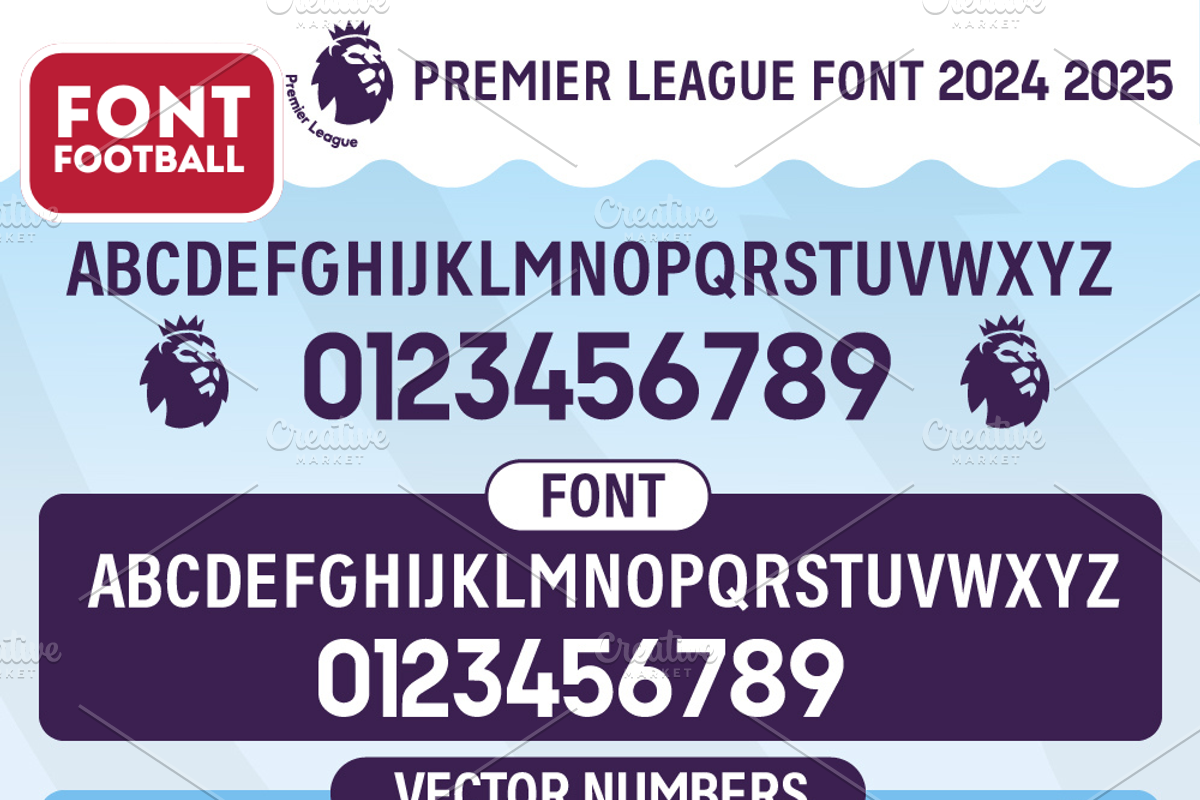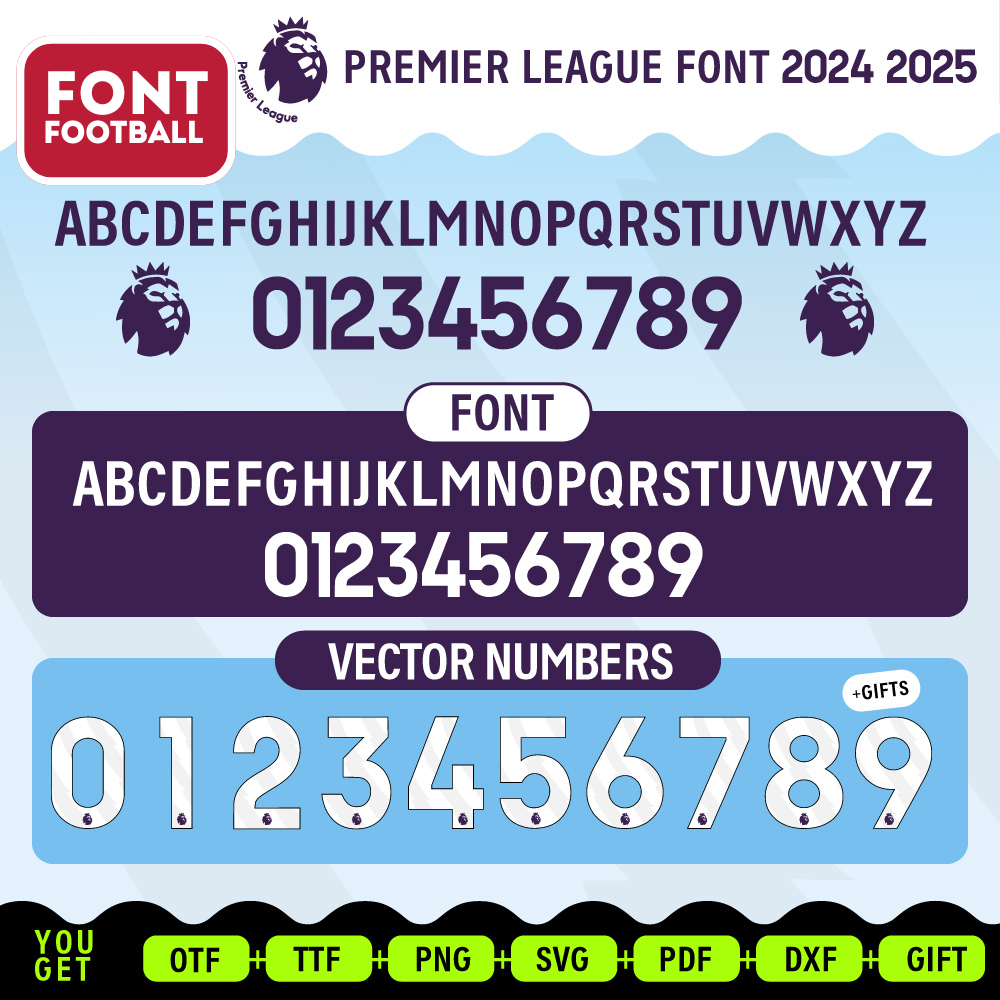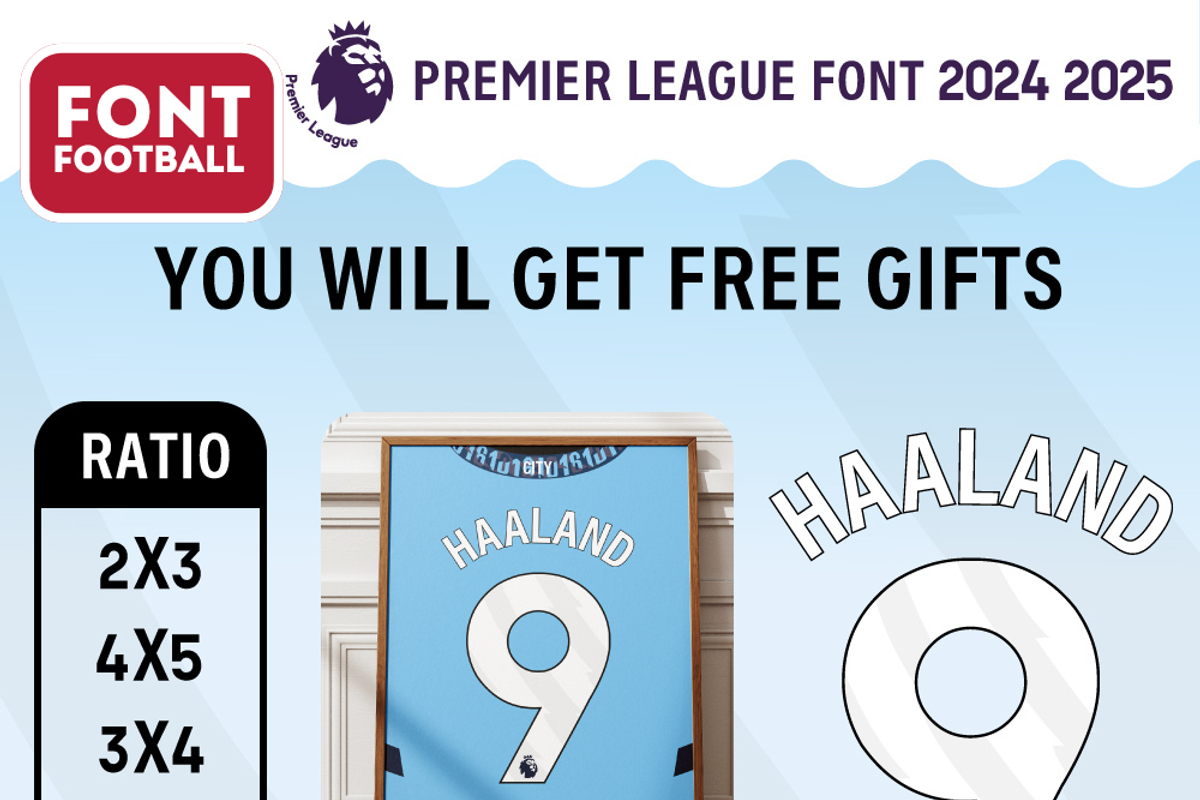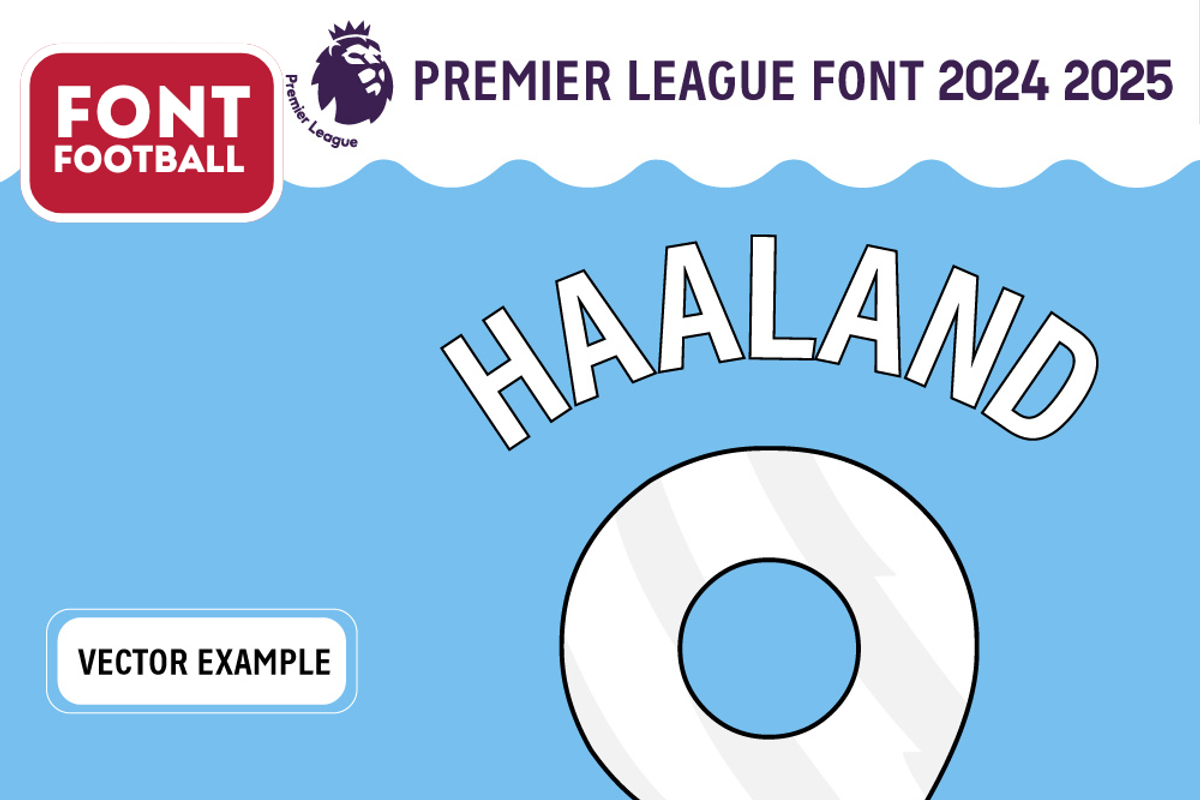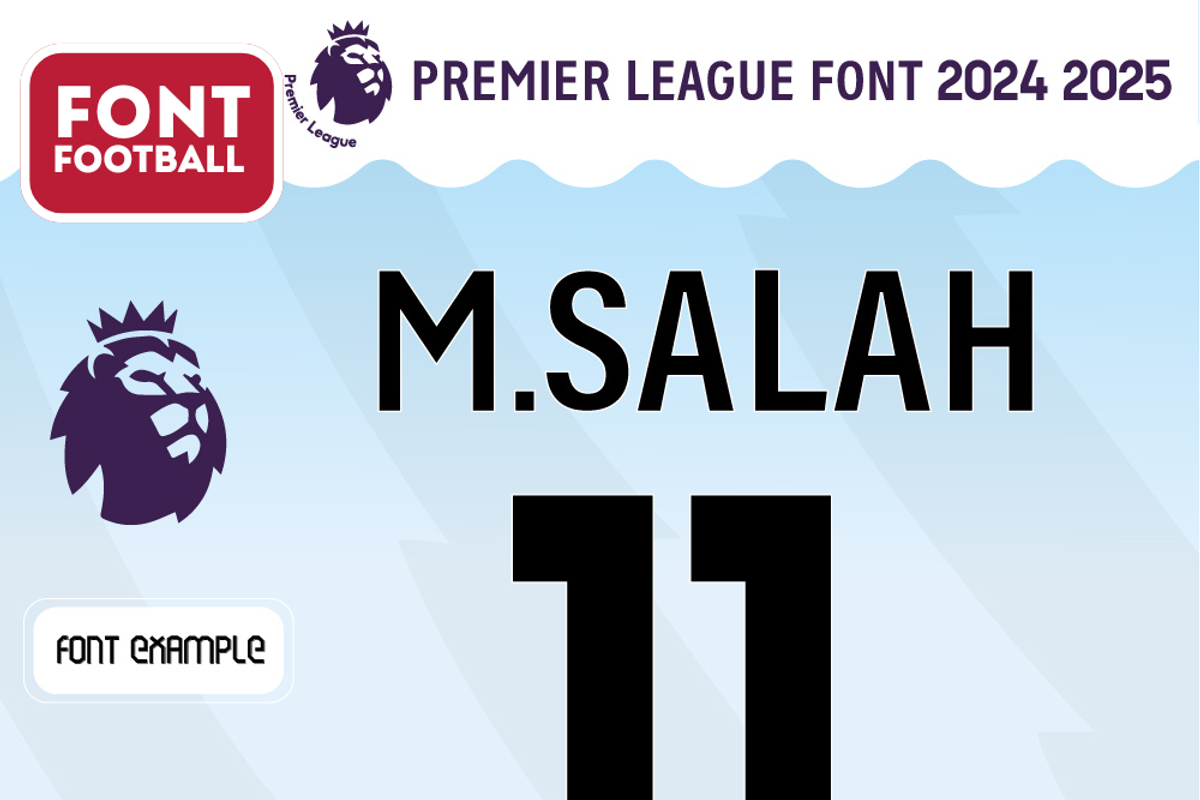
Font football PREMIERS League 24-25
Elevate your sports-themed designs with the official-style Premier League Font, perfect for jerseys, merchandise, and creative projects. This professional-quality bundle is ideal for fans, designers, and crafters alike!